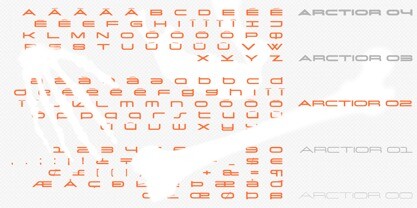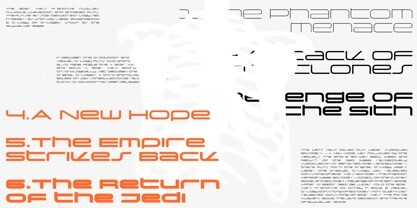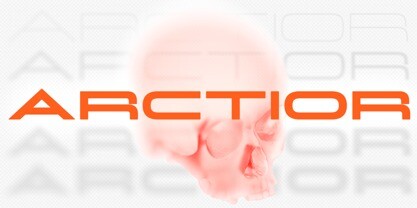
Arctior Font Family
Arctior Font Family,is the result of a typographic exploration of more than a year. In it, a minimum amount of shapes are used to assemble an alphabet of sci-fi feel.
Inspired by future, Arctior is a great fit for spatial fantasy material, music gear interfaces or forward-looking tech ventures, to name few fields.
Though designed to be a display font for titles, short texts and logos, feel free to play with it and adapt it to your need.
Arctior is a family consisting of 5 weights of 208 glyphs each, including 12 stylistic alternates.